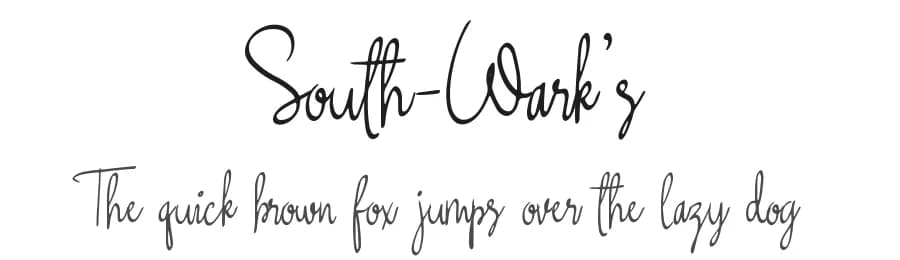
About South-Wark's Font
The South-Warks is a modern signature font which was made for many different applications & styles to personalize your products. It has extra large capitals for an unique signature style that is perfect for wedding invitations, logos, apparel, decorative quotes, photography, prints, scrap booking and much more!
South-Wark's Specifications
South-Wark's Font is a script font that shines as a display or heading face. Pair it with a clean sans-serif or serif font for body text — the contrast creates a clear hierarchy while the two styles stay balanced and easy to read.
South-Wark's Font